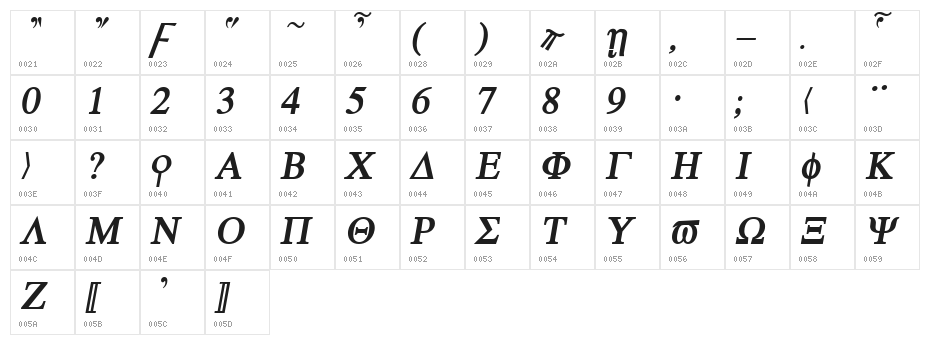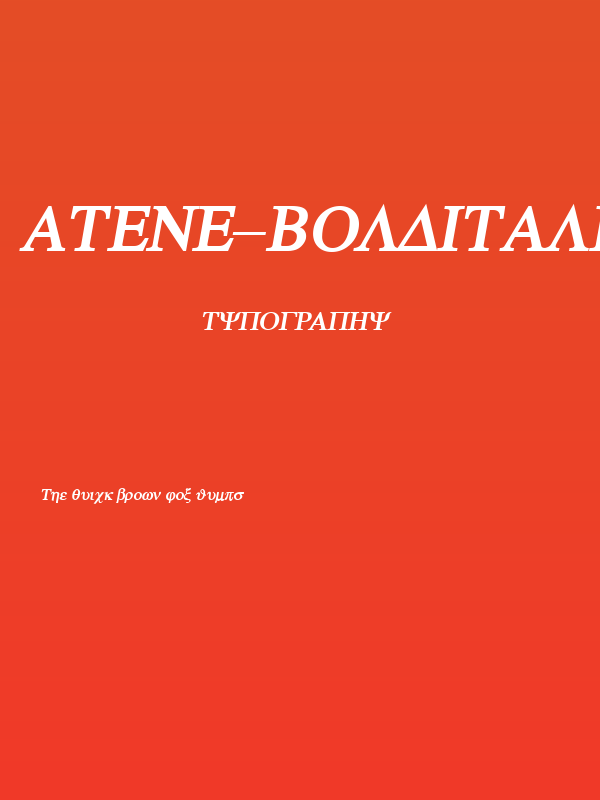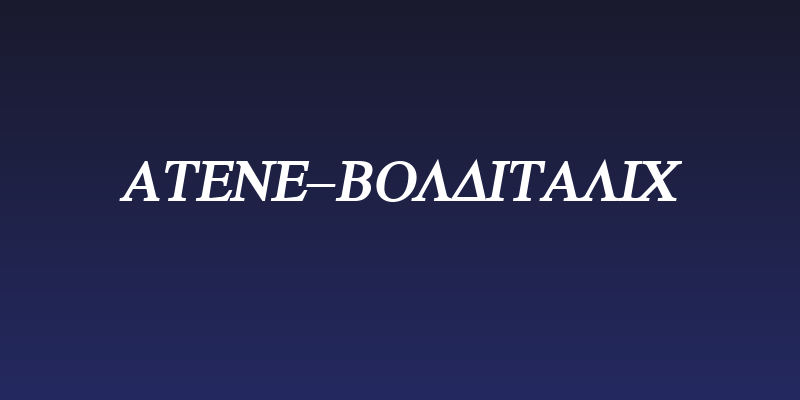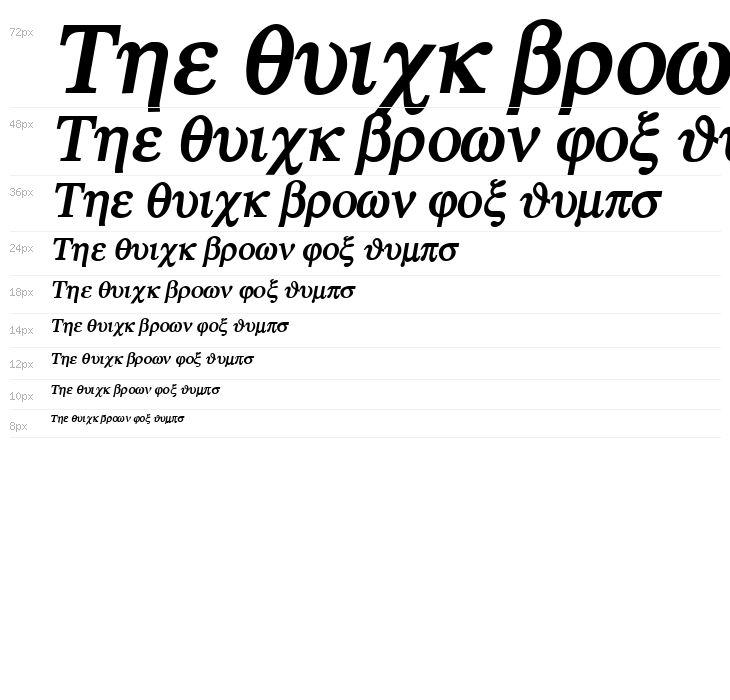
Atene-BoldItalic Font
Atene-BoldItalic Description
This font features a bold and italicized style with a distinct Greek influence, evident in its letterforms. The characters are well-defined with a slight slant, giving them a dynamic and elegant appearance. The uppercase letters are strong and commanding, while the lowercase letters maintain a consistent flow. Numbers are clear and easily readable, complementing the overall design. Special characters are included, adding versatility to the font. The strokes are moderately thick, providing a balanced contrast that enhances readability.
| Use Case | Headlines, Logos, Titles |
| Proposed Projects | Ideal for projects that require a classical or scholarly aesthetic, such as academic publications, historical documentaries, or cultural event branding. |